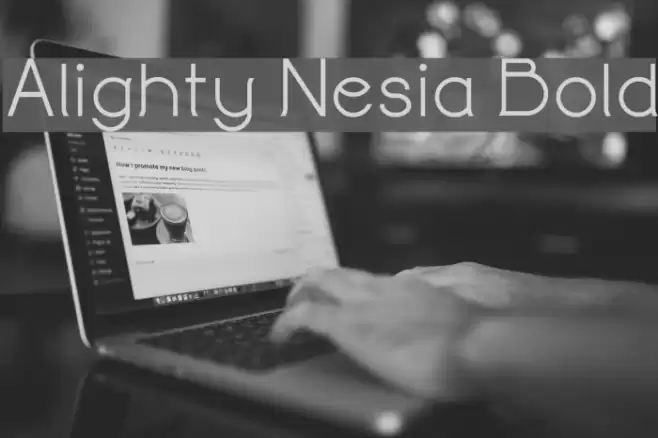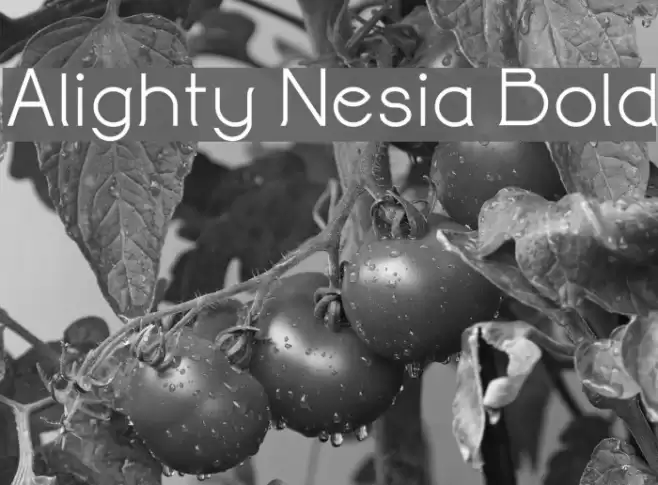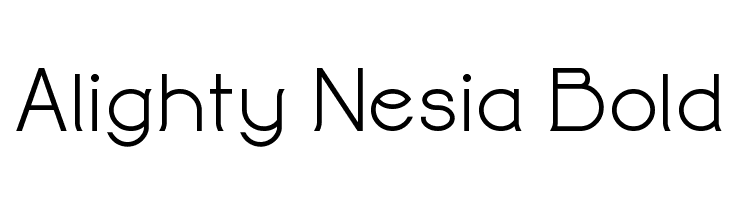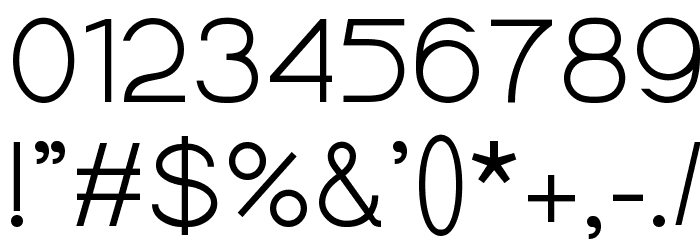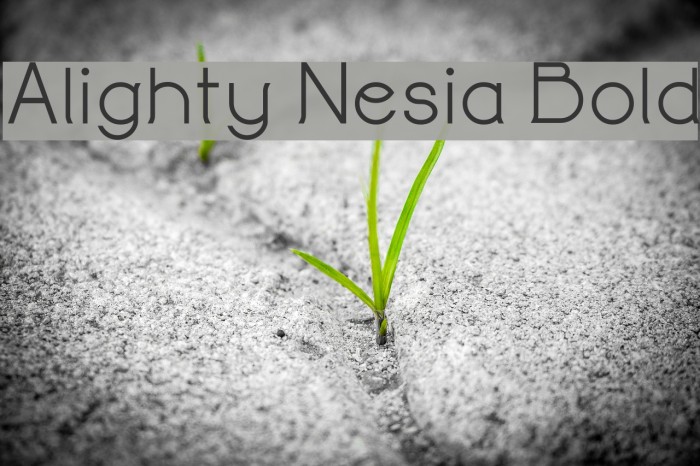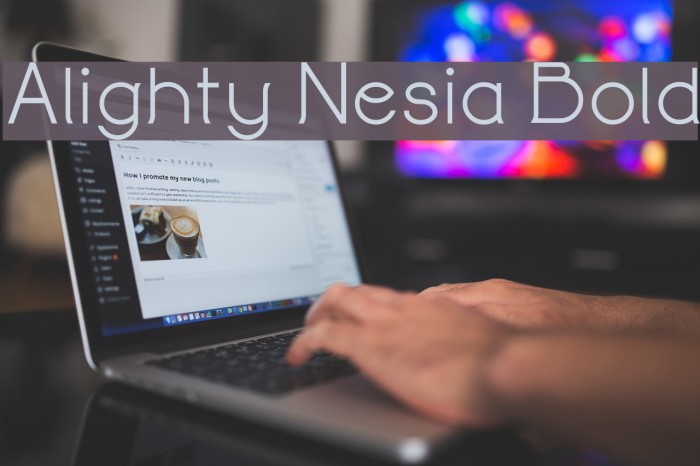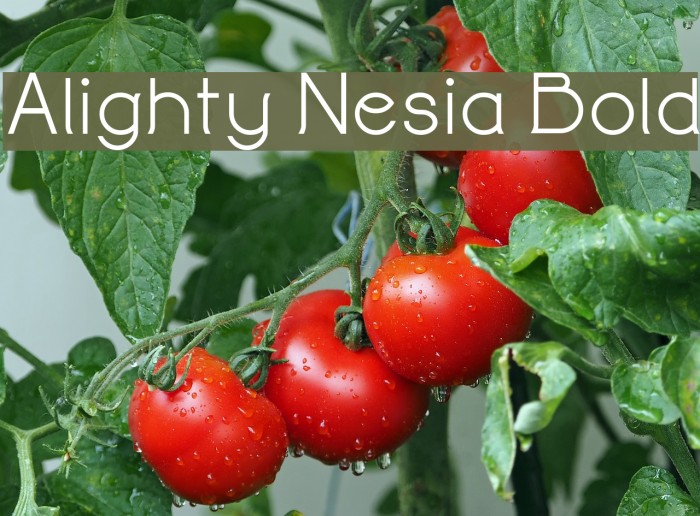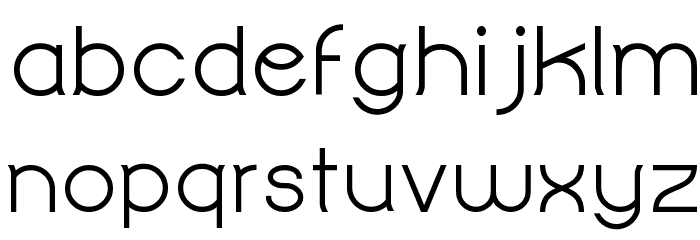
Alighty Nesia Bold Font
Alighty Nesia Bold Description
This font features a clean and modern sans-serif style with a geometric structure. The characters are evenly spaced, providing a balanced and harmonious appearance. The uppercase letters are bold and assertive, while the lowercase letters maintain a consistent flow with rounded edges. The numerals are clear and legible, making them suitable for various applications. Special characters are designed with simplicity and clarity in mind, ensuring they integrate well with the overall font style. This font is versatile, making it ideal for both digital and print media.
A modern, geometric sans-serif font with clean lines and balanced spacing from Uncategorized fonts.
- Proposed Projects: Ideal for branding, advertising, web design, and editorial layouts.